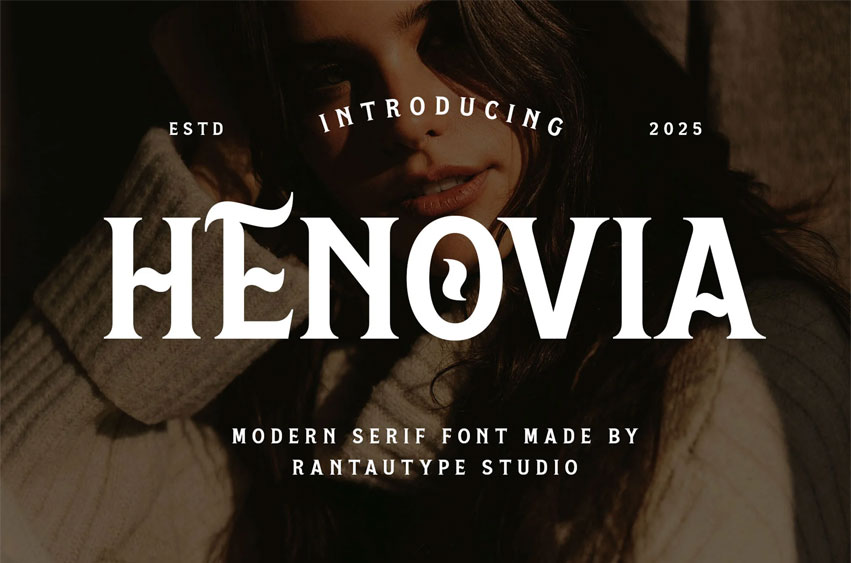
Henovia Font
Henovia Font is a classic serif font that is the epitome of timeless elegance and refined sophistication, embodying a sense of tradition that has stood strong for centuries. Recognized by its distinctive small lines or “serifs” that extend from the ends of each letterform, this font style carries a graceful charm that instantly conveys professionalism, heritage, and authority.
Henovia is a perfect choice for any creative endeavor, chic lifestyle design, such as logotype, advertisements, watermark on photography, stationery, branding project, display and magazine, invitation, corporate brand, product design, label, business project, and many other projects with a retro touch.